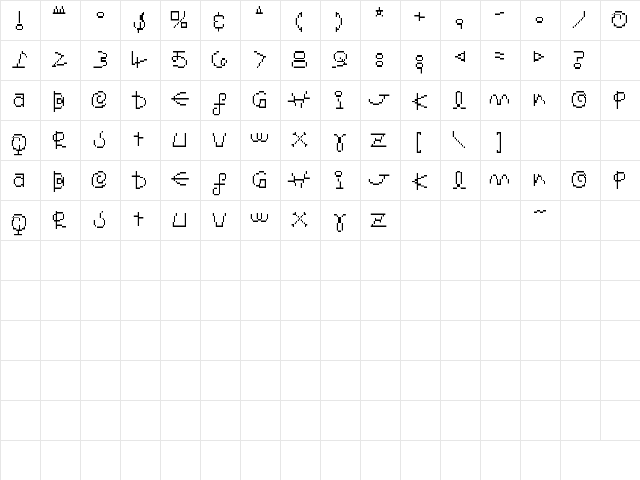
Senor Saturno Regular Font Preview
Senor Saturno Regular
Senor Saturno Regular Font Details
Design Context for Senor Saturno Typeface
Senor Saturno is a composed and adaptable typeface that performs quietly and consistently across a wide range of design contexts.